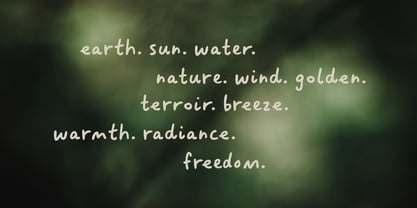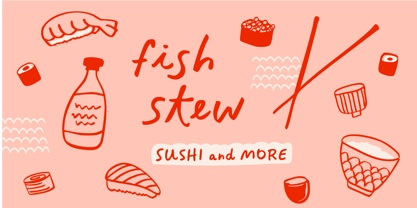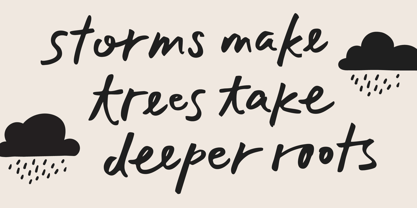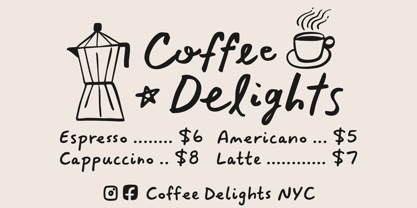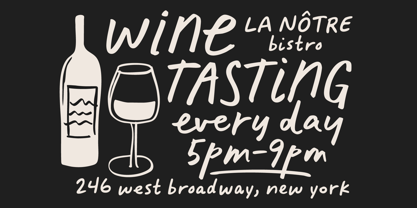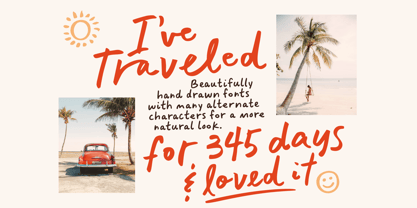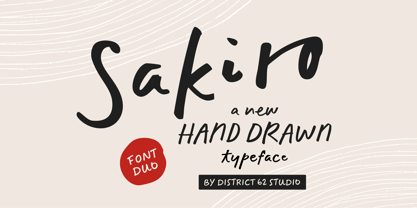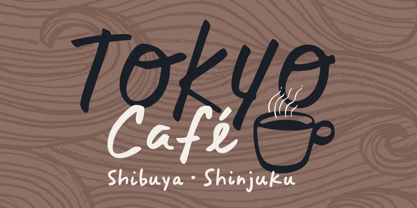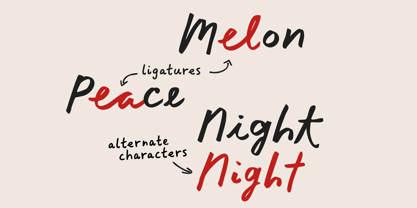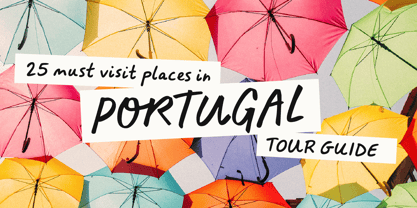
Sakiro
by District 62 Studio
The Sakiro Font Family was designed by Megan Tamaccio, Aleksandar Veljasevic and published by District 62 Studio. Sakiro contains 3 styles and family package options. More about this family
Introducing Sakiro — a modern handwritten font duo inspired by the quiet charm of Japanese hand written signage. Drawing from the clean, quiet character of hand-drawn lettering found on café and boutique signs tucked away in side streets, this type family balances organic imperfection with subtle structure. The set includes two complementary styles: an expressive script with soft brushstroke references, and a printed companion with both regular and italic weights. The script is carefully drawn with organic stroke details, creating a natural rhythm and movement. The printed style balances it perfectly — approachable yet structured, with just the right amount of character. With a generous selection of ligatures and alternates, the result is a typeface that looks beautifully hand-lettered right out of the box yet refined enough for contemporary branding. Minimal, tactile, and quietly expressive, Sakiro is ideal for food and beverage brands, travel and lifestyle projects, boutique packaging, and editorial design — anywhere a subtle human touch elevates the story.
About District 62 Studio
District 62 Studio is a type and graphic design studio founded by partners Megan Tamaccio and Aleksandar Veljasevic. With deep roots in product and graphic design, the duo has channeled their shared love of typography and hand lettering into creating versatile, modern typefaces with a distinctly human touch. Their work draws inspiration from vintage typography, reimagining it through a contemporary lens to meet the needs of today’s creative professionals. Above all, they value authenticity—preserving the handmade quality that fuels their inspiration and gives their designs their signature character.